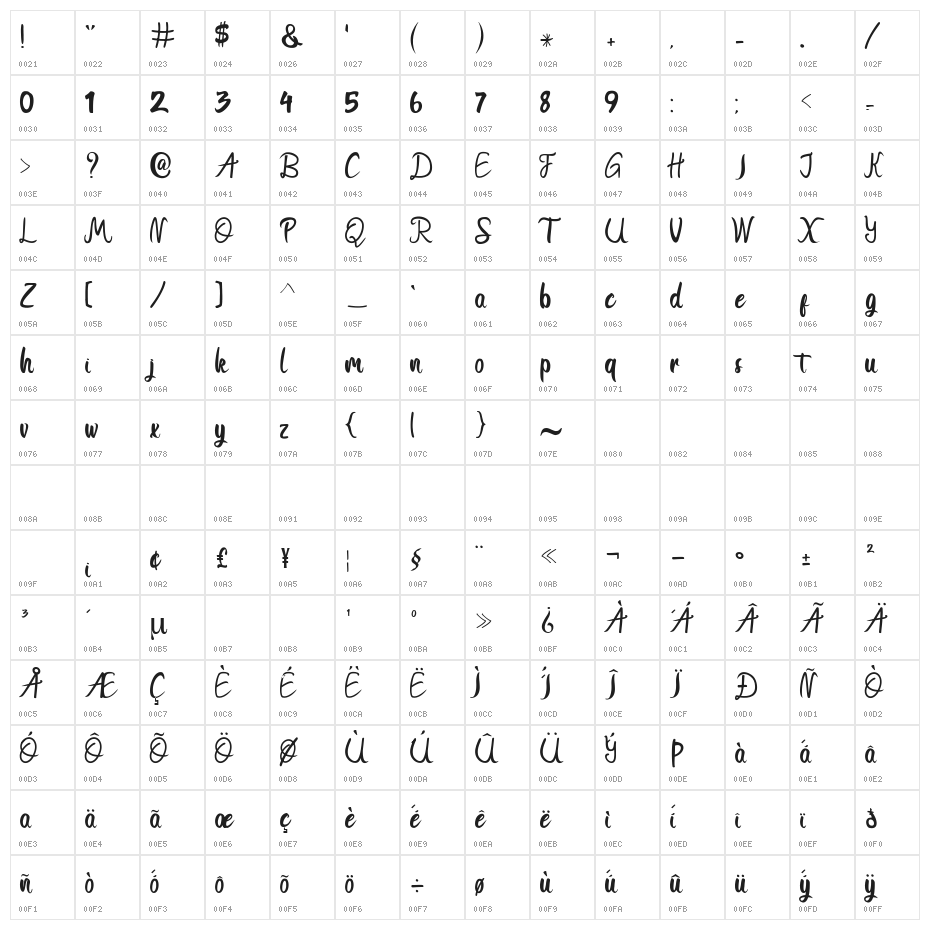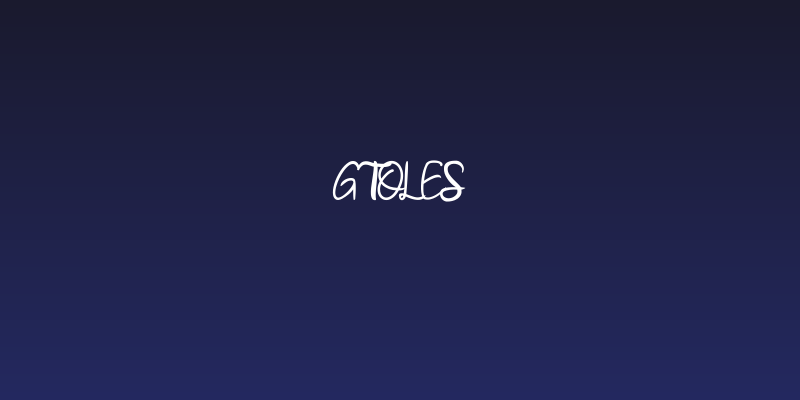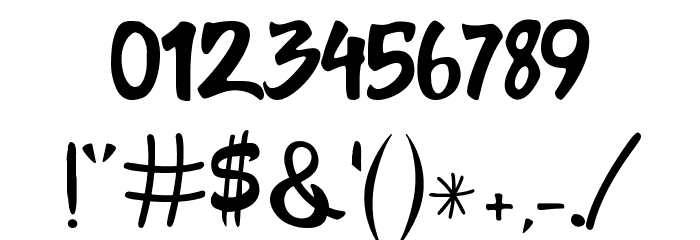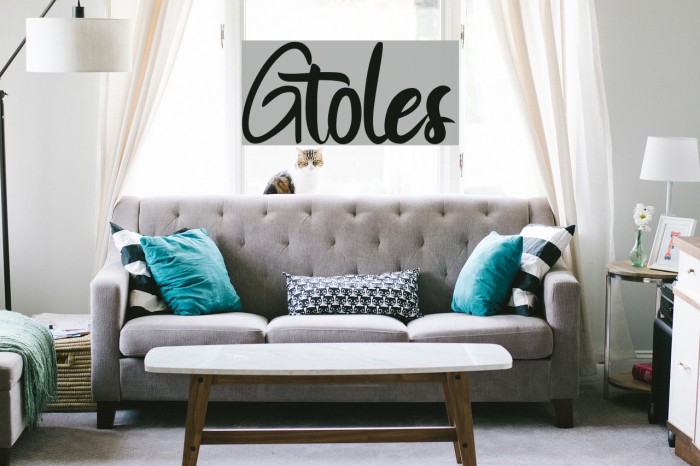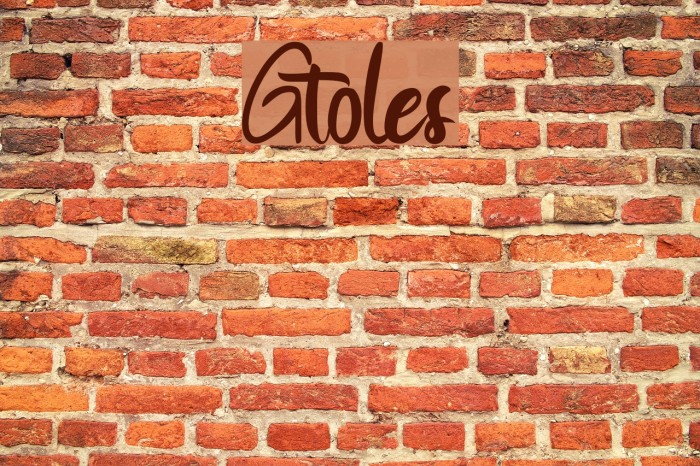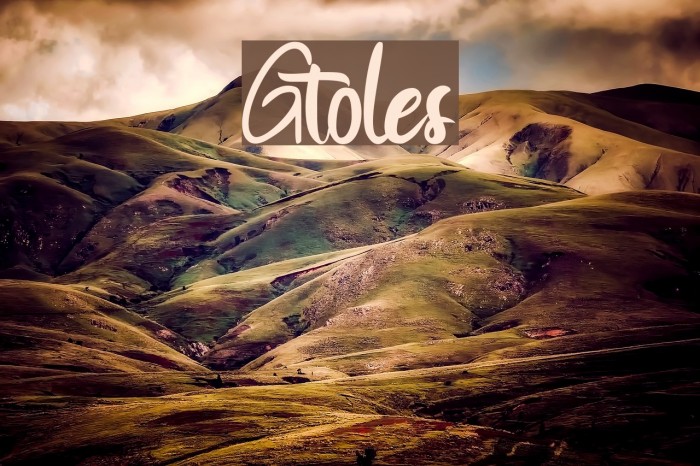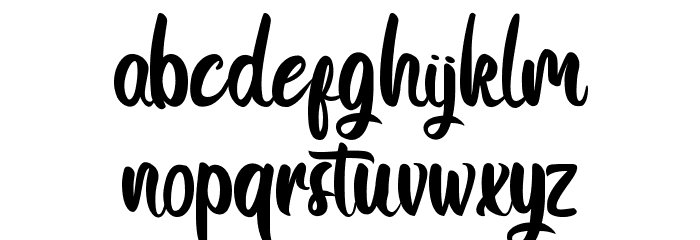
Gtoles Font
Gtoles Description
This font features a playful and dynamic script style with a handwritten appearance. The uppercase letters are bold and slightly slanted, giving a sense of movement and energy. The lowercase letters maintain a consistent flow with rounded edges and smooth curves, enhancing the casual and friendly vibe. Numbers are bold and easily readable, while special characters are designed to match the overall aesthetic. The font's informal style makes it suitable for projects that require a personal touch or a creative flair.
| Proposed Projects | Ideal for greeting cards, invitations, branding, and social media graphics. |